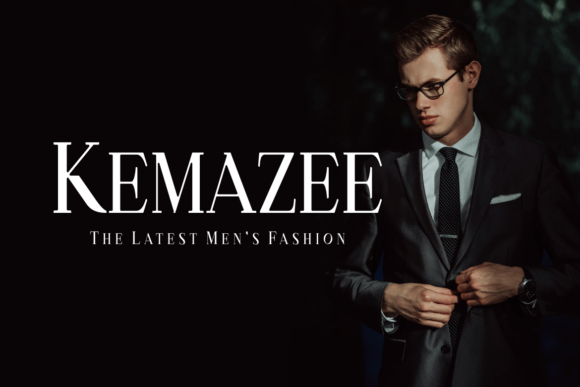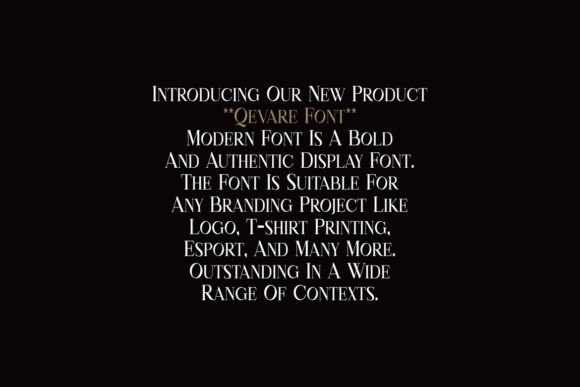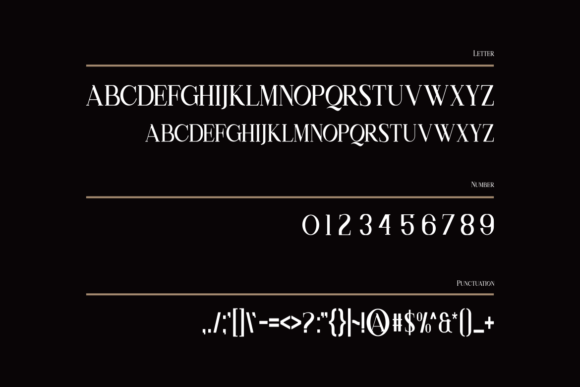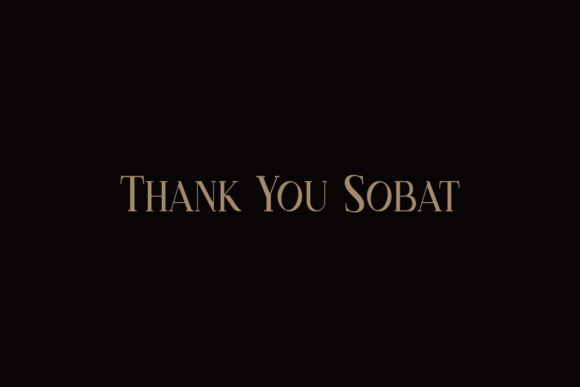
Introduction to Qevare Font
Qevare is a bold and assertive serif font.
Key Features of Qevare Font
Why Choose Qevare Font?
Qevare Font offers exceptional quality and versatility, making it a valuable addition to your design toolkit. Whether you’re creating for personal projects or commercial use, Qevare Font delivers professional results.